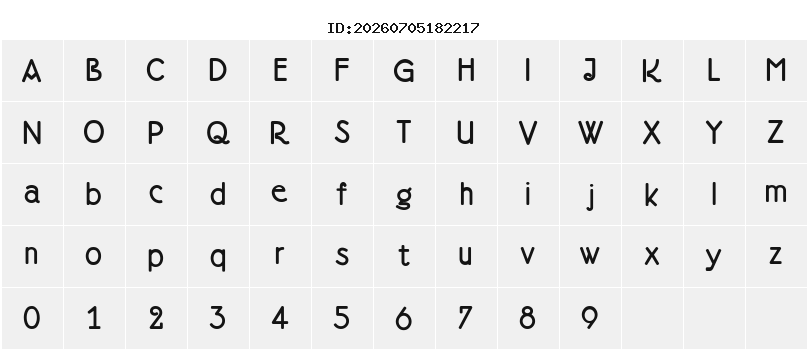
DoctorJekyll Preview
• Font Name: DoctorJekyll
• Full Font Name: DoctorJekyll
• PostScript Name: DoctorJekyll
About DoctorJekyll.ttf
DoctorJekyll.ttf is a modern, elegant sans-serif font designed for ultimate readability and visual harmony. Perfect for branding, headlines, web design, and print materials.